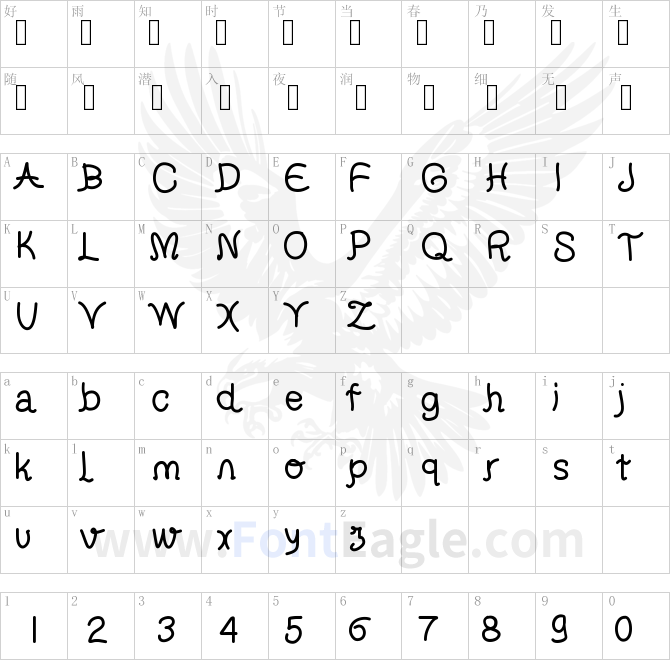
- Font name:helveti
helveti is a great font, widely used in graphic design, single-page menu design, poster design and other fields, and is deeply loved by designers.helveti download.